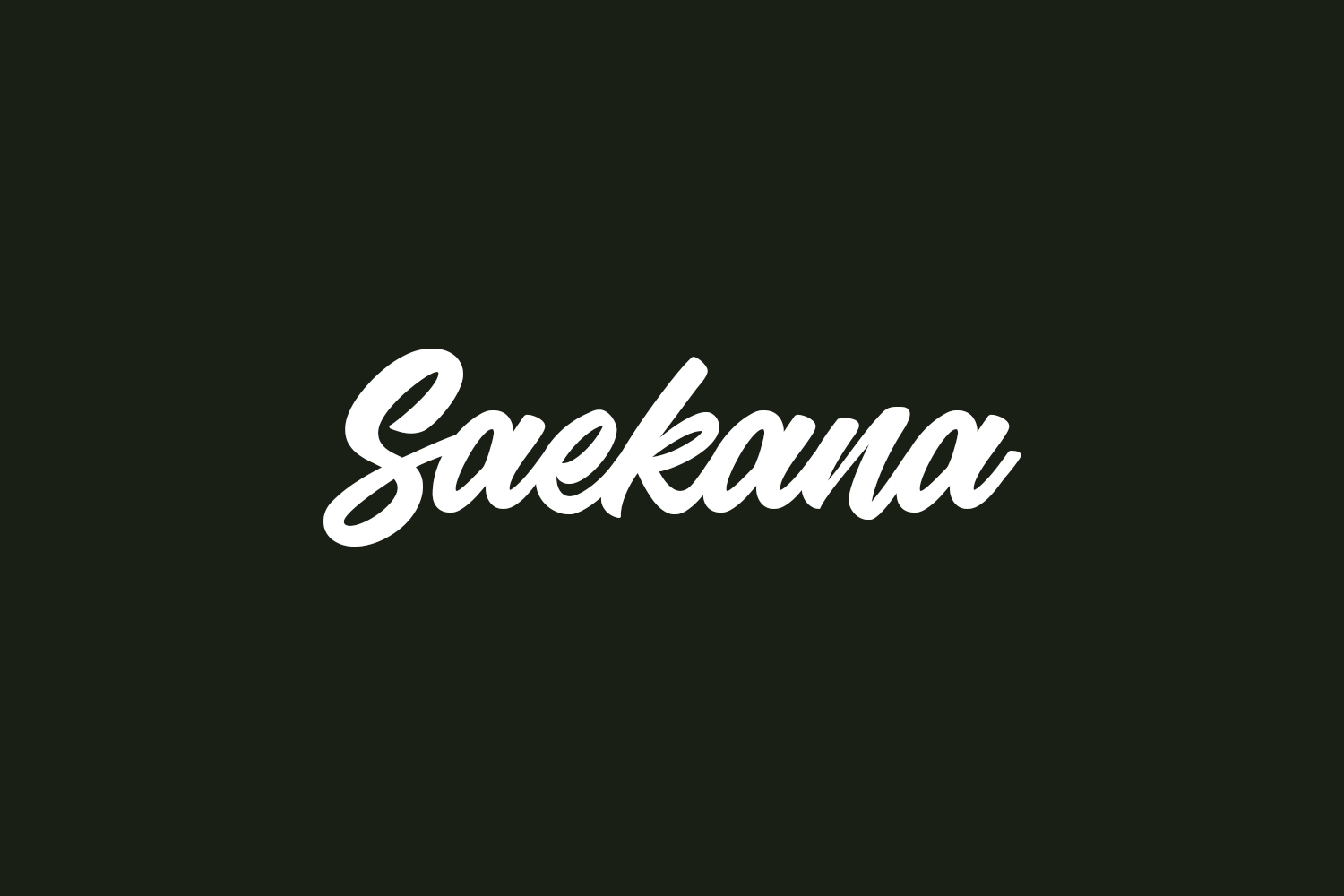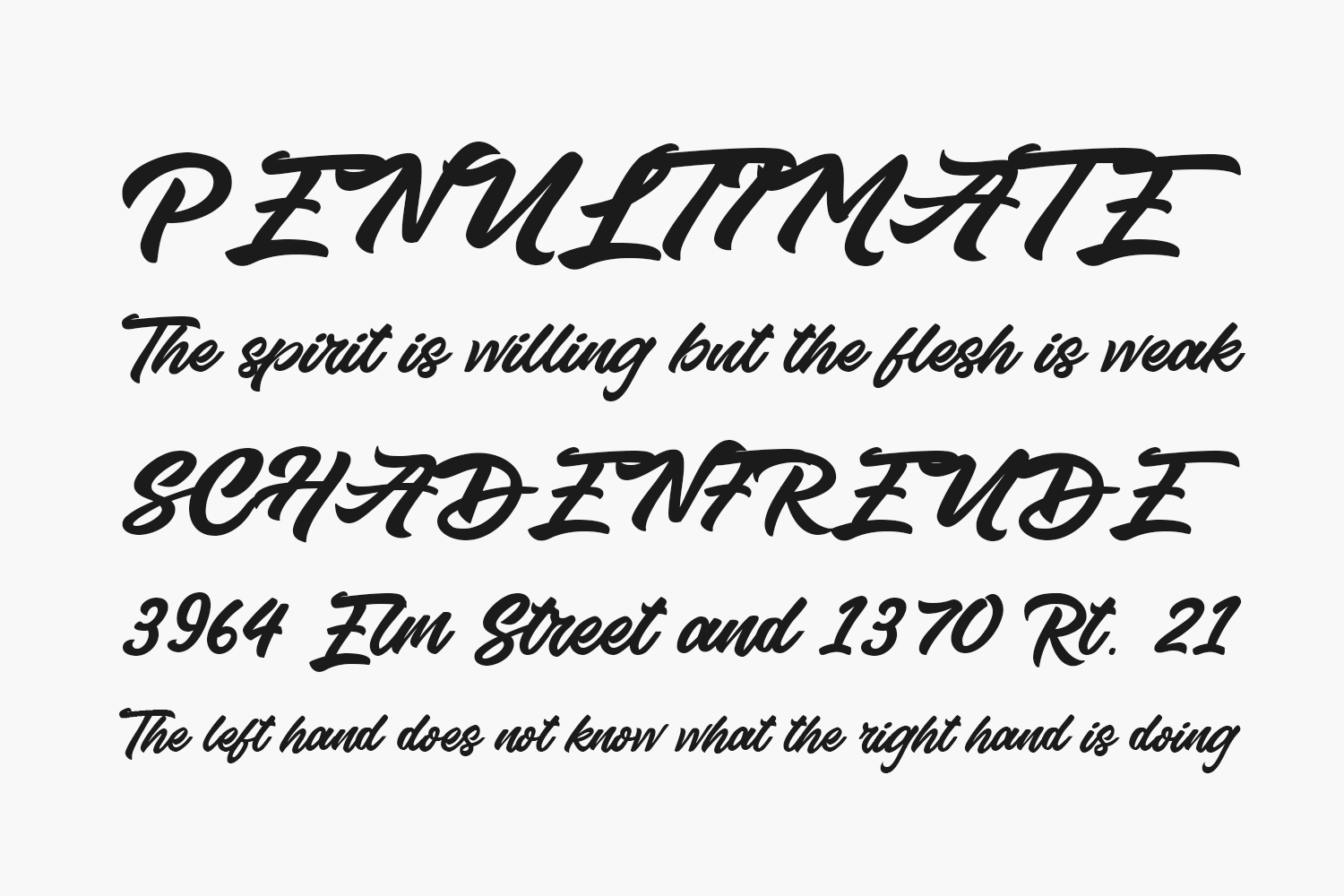
Saekana Free Font Family is a bold and chunky handwritten font with a vintage look. Get inspired by its unique style. Saekana Free Font was designed by Sizimon.id and is free for personal use only. Please purchase the full version for commercial use.
Saekana Clean The quick brown fox jumps over the lazy dog
Saekana Rough The quick brown fox jumps over the lazy dog
Saekana Swash The quick brown fox jumps over the lazy dog